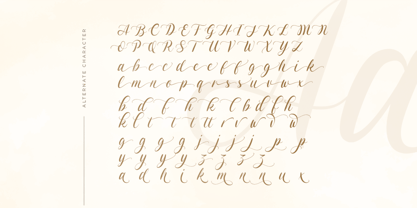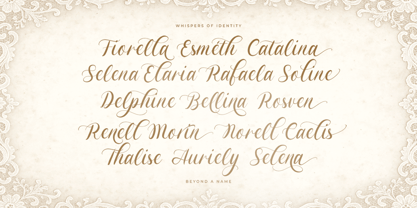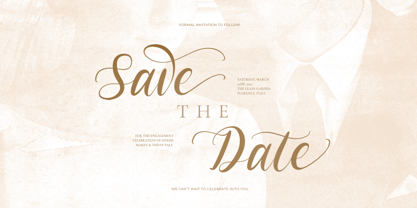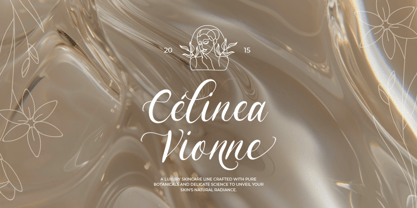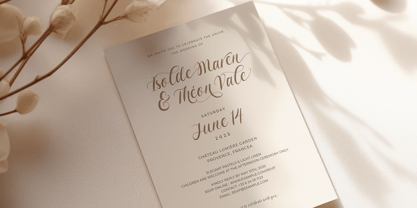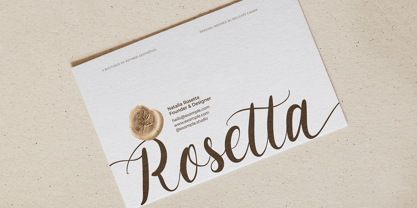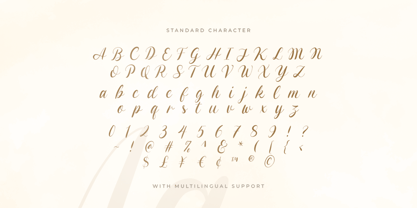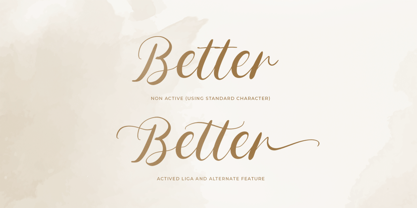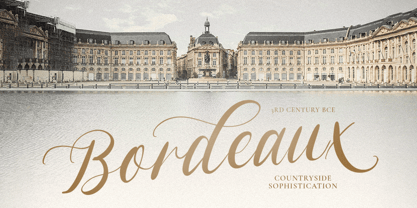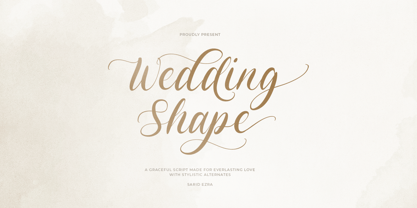
Wedding Shape
by Sarid Ezra
The Wedding Shape Font Family was designed by Sarid Ezra and published by Sarid Ezra. Wedding Shape contains 1 styles. More about this family
Wedding Shape is a handwritten brush script with romantic and hand touch vibes. You can use this font for any purposes such as a logo, quotes, and any other graphic that need soft and luxury looks. This font is also suitable for your wedding invitation or any romantic occasions. Wedding Trope comes with many alternates that will make your design even more eccentric. This font also support multi language!
Designers: Sarid Ezra
Foundry: Sarid Ezra